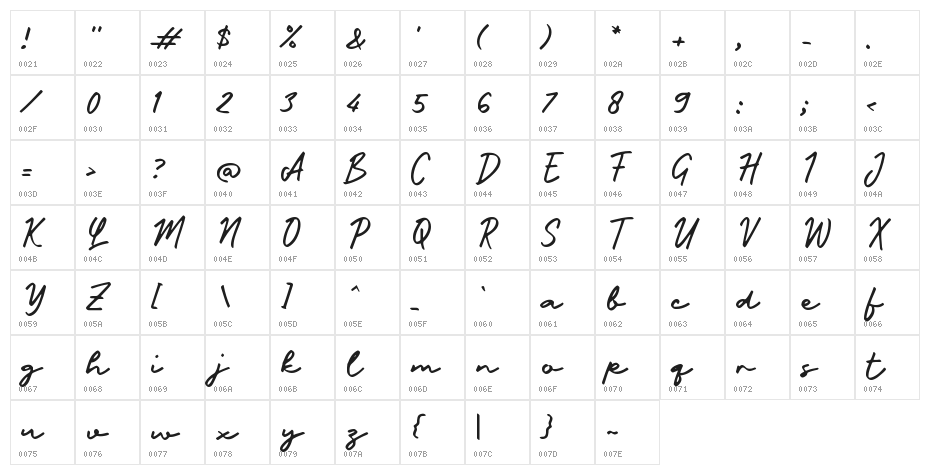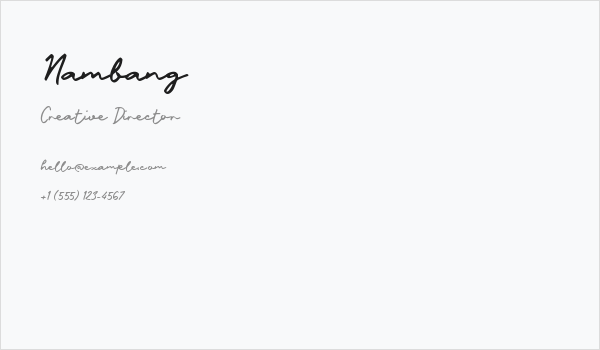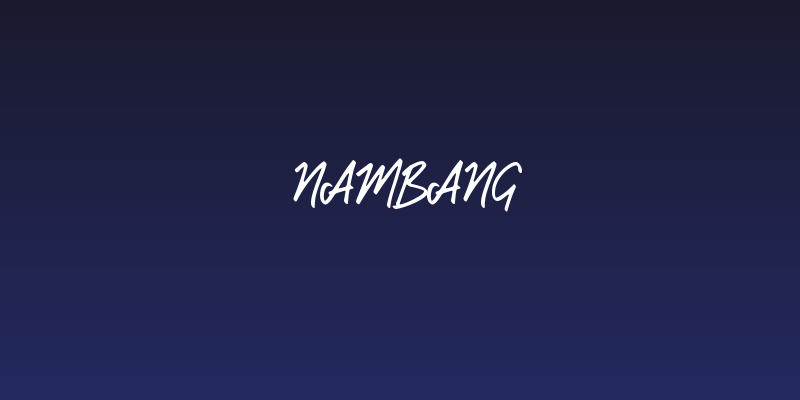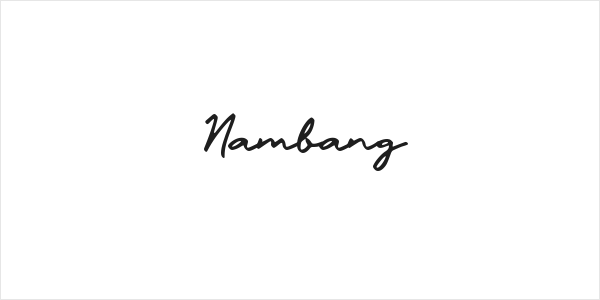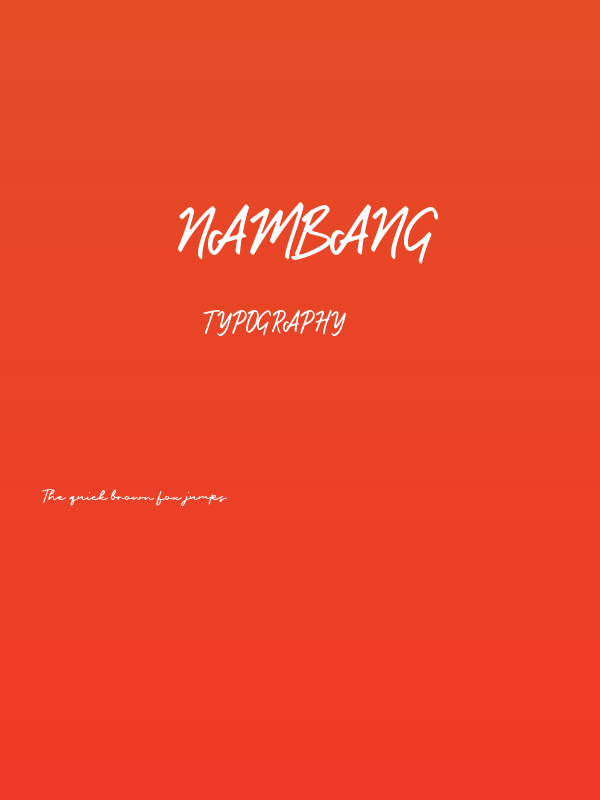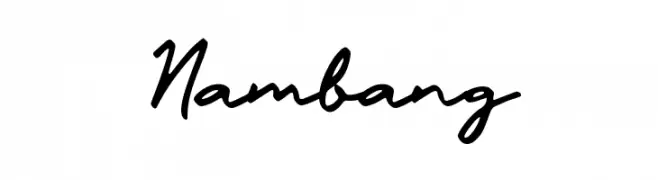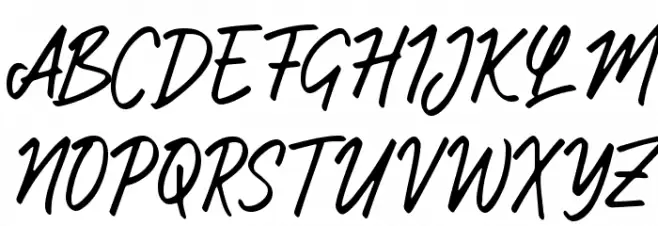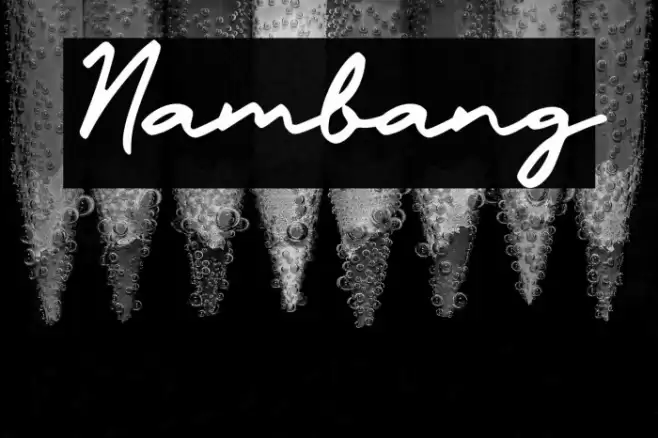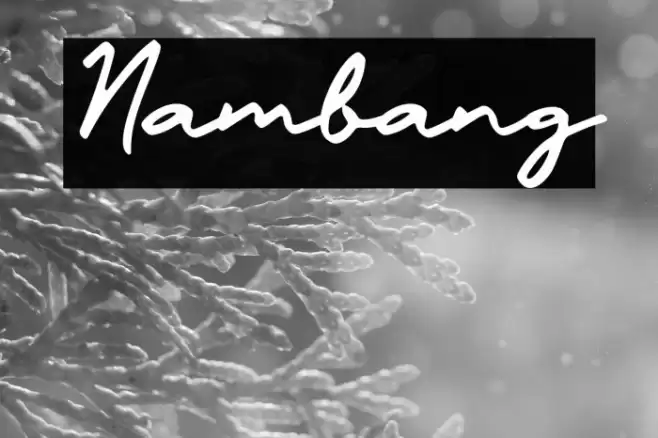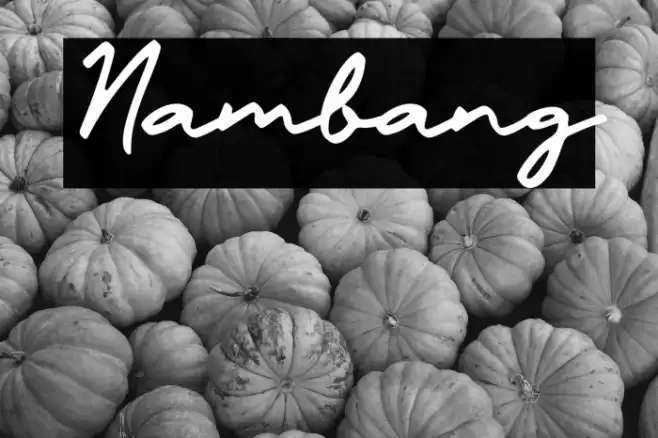
Nambang Font
Nambang Description
A casual, handwritten script font with a smooth, flowing style that mimics natural handwriting.
| Overall Style | Casual, Handwritten |
| Use Case | Headlines, Personal projects, Invitations, Branding |